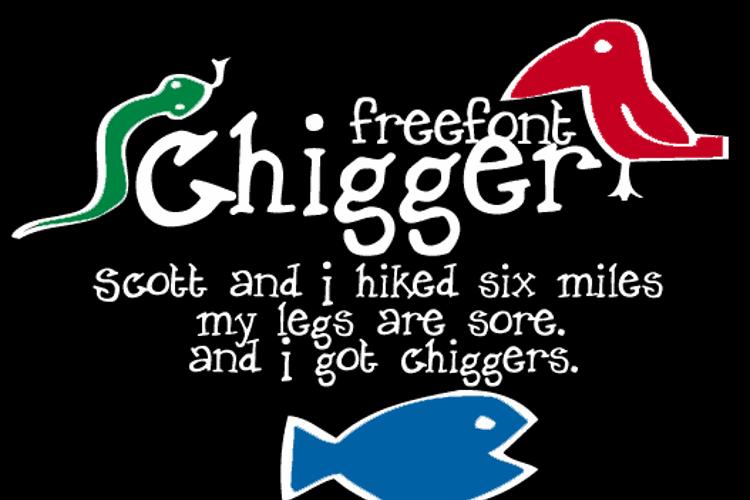
Chigger Font
About Chigger Font
Chigger Font is a Slab-Serif font and was created on . Since then, it has been downloaded 2,373 times and added to 48 collections. 3 people have liked Chigger Font and given it a thumbs up.
fun. cute. what IS that ampersand creature? it LOOKs friendly.